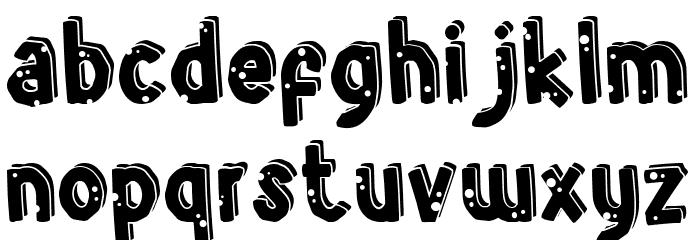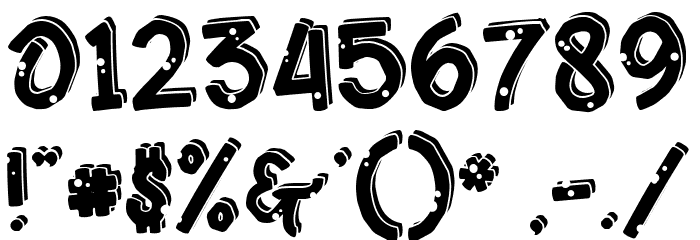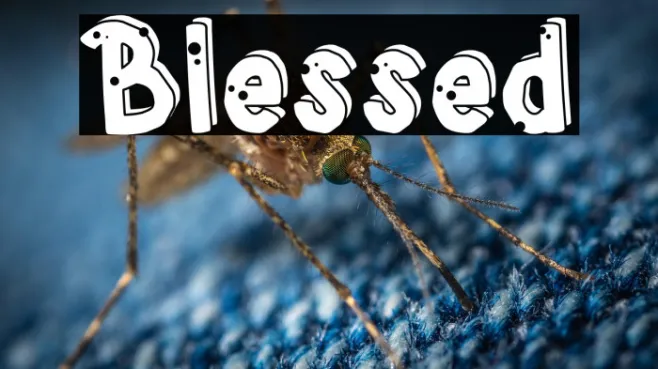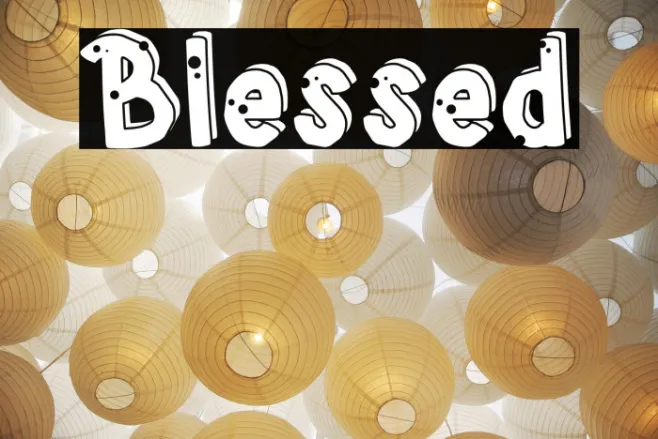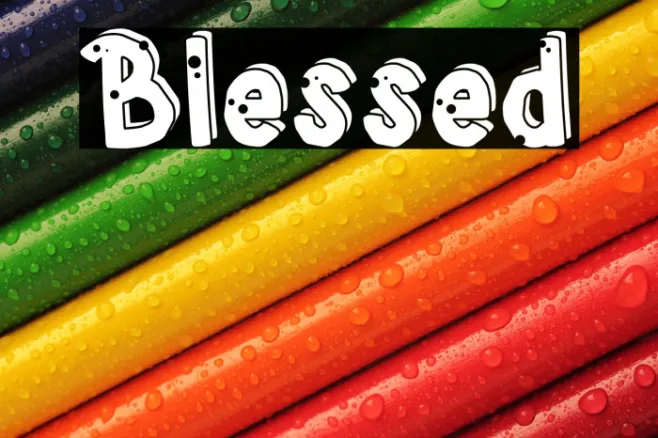
Blessed Font
This font features a bold and playful design with a unique, decorative style. Each character is adorned with small circular cutouts, giving it a whimsical and artistic appearance. The letters are thick and robust, making them highly visible and impactful. The uppercase and lowercase letters maintain a consistent style, with rounded edges and a slightly irregular shape that adds to the font's charm. The numbers and special characters follow the same decorative theme, ensuring a cohesive look across all text. This font is perfect for projects that require a fun and eye-catching typeface.
A bold, playful font with decorative cutouts and a whimsical style.
- Font: Blessed
- Proposed Projects: Ideal for children's books, playful branding, party invitations, and creative posters.